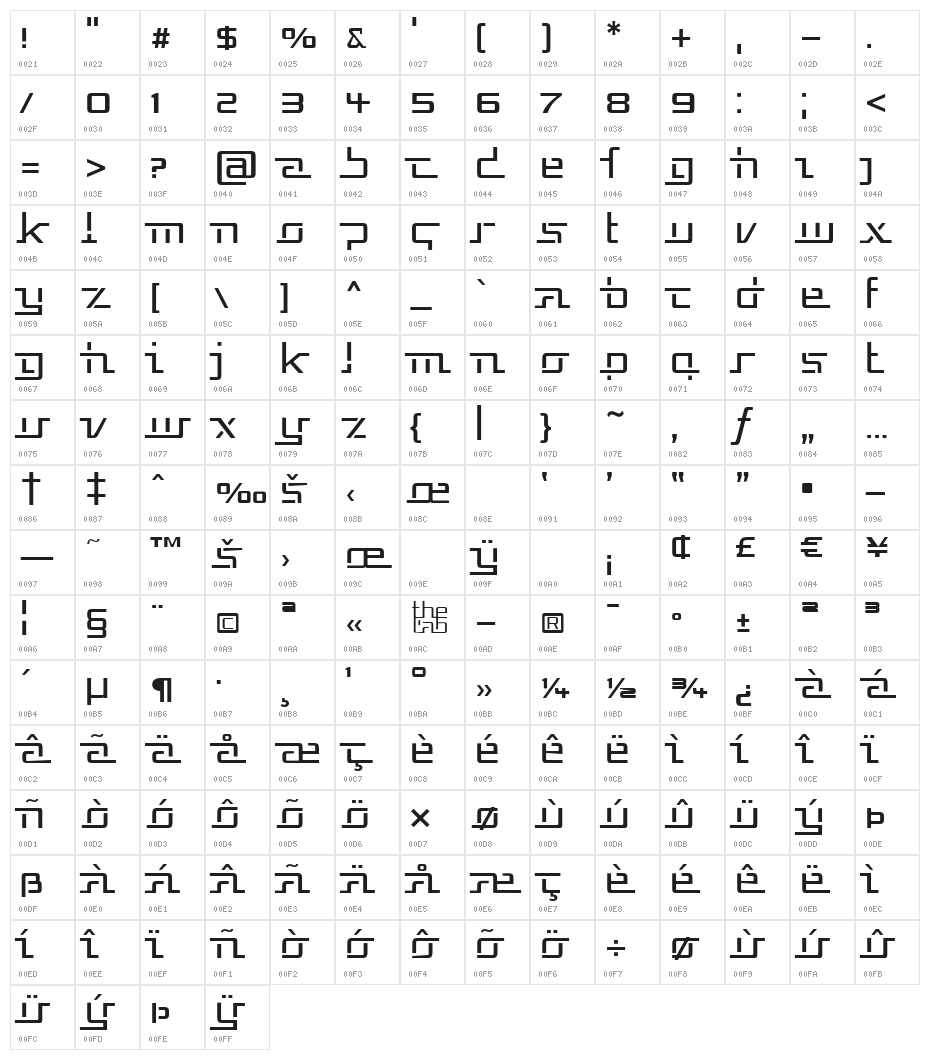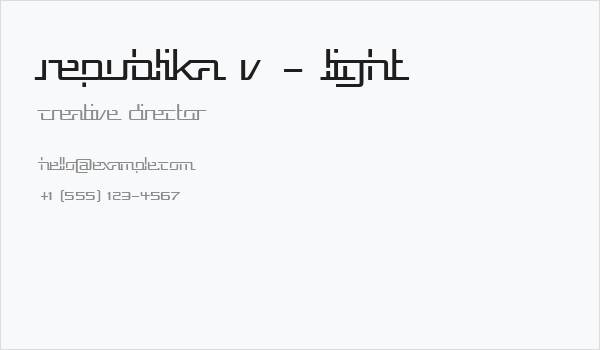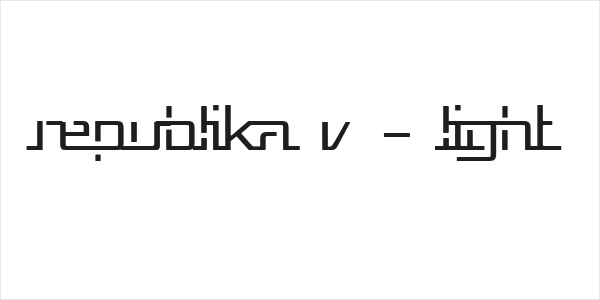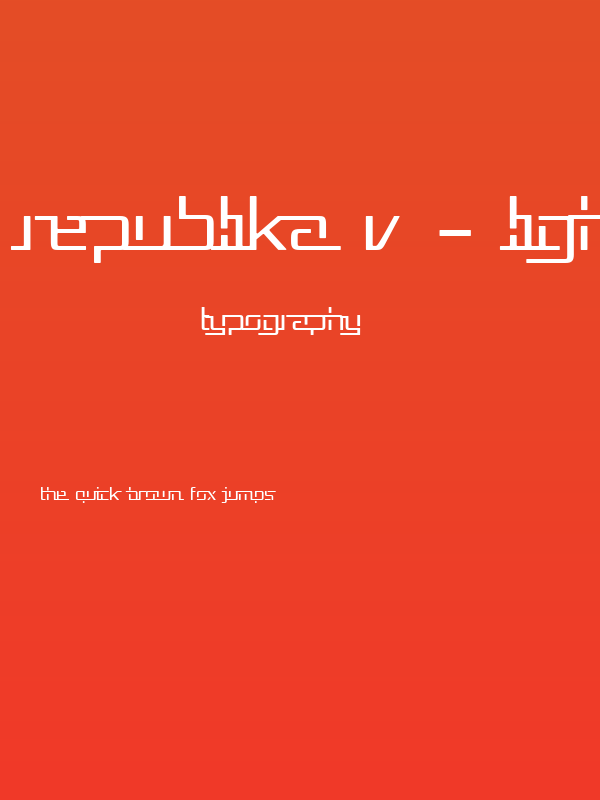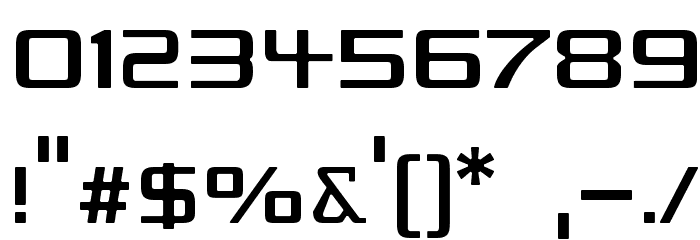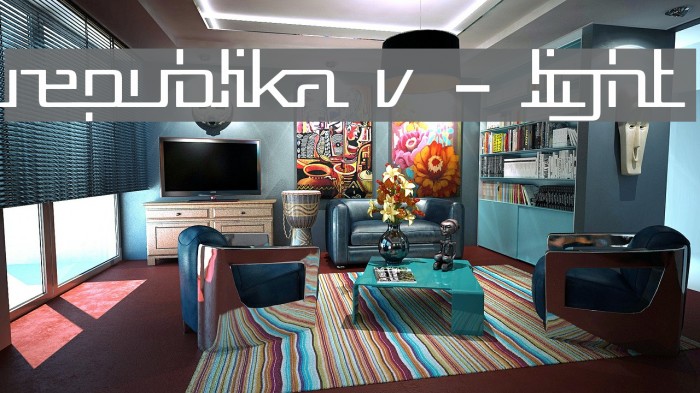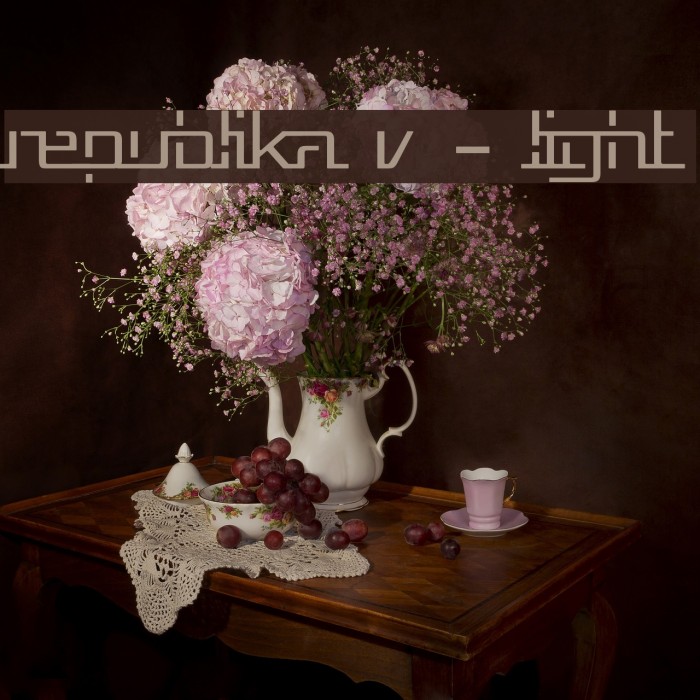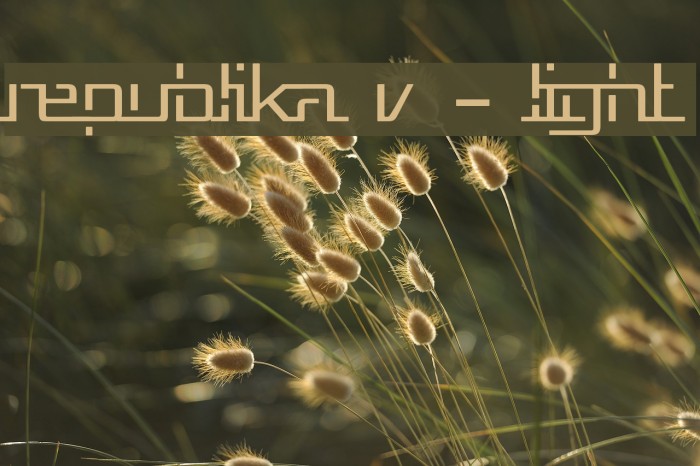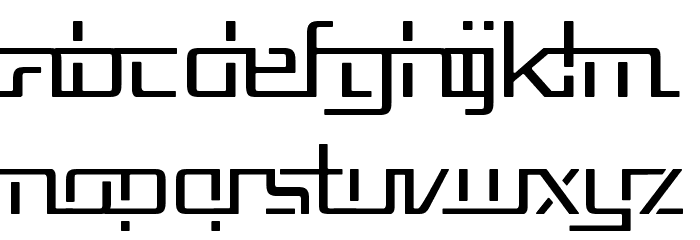
Republika V - Light Font
Republika V - Light Description
This font features a modern, geometric design with a distinct futuristic feel. The characters are constructed with clean, straight lines and sharp angles, creating a sense of precision and clarity. The uppercase and lowercase letters maintain a consistent height, contributing to a uniform appearance. The numerals and special characters follow the same design principles, ensuring a cohesive look across all text. The font's minimalistic style makes it suitable for digital interfaces and technology-related projects, where readability and a contemporary aesthetic are essential.
| Overall Style | Futuristic, Minimalistic |
| Use Case | Headlines, Logos, Digital Interfaces |
| Proposed Projects | Ideal for technology branding, digital interfaces, futuristic posters, and modern web design. |